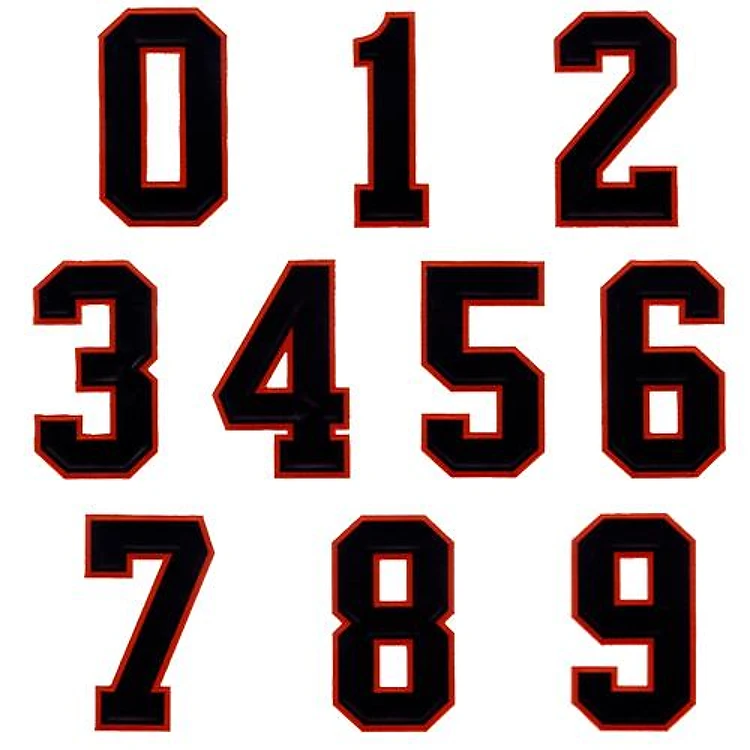
Starbird Inc is happy to present Athletic Applique Numbers 2 Color machine embroidery font which has Bold athletic applique numbers embroidery font designed for team jerseys and sports gear. Ideal for stitching on fabrics like cotton and offered in PES, DST, and 10 other formats. included. If you would like to view more embroidery fonts and alphabets please search our embroidery fonts page.
Bold athletic applique numbers embroidery font designed for team jerseys and sports gear. Ideal for stitching on fabrics like cotton and offered in PES, DST, and 10 other formats.